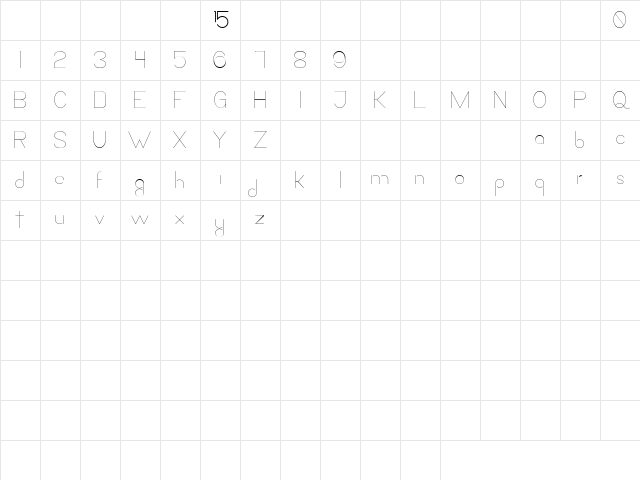
La Quince de Mayra Regular Free Font
La Quince de Mayra Regular
Design Context for La Quince de Mayra
La Quince de Mayra is a composed and adaptable typeface that performs quietly and consistently across a wide range of design contexts.